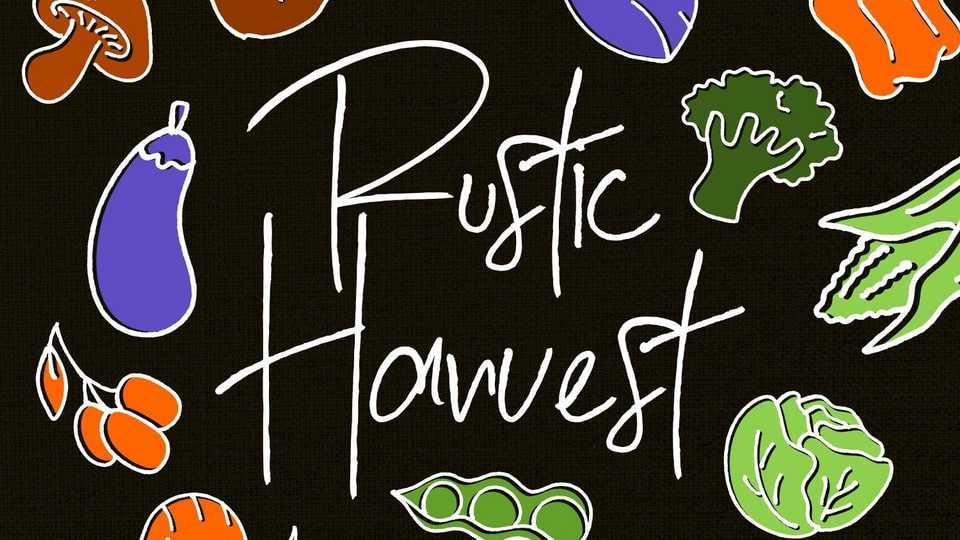
Rustic Harvest Font › Fontesk – Download Grátis
Download Rustic Harvest font, a charming handwritten typeface, perfect to create authentic and inviting designs with a touch of autumnal charm.